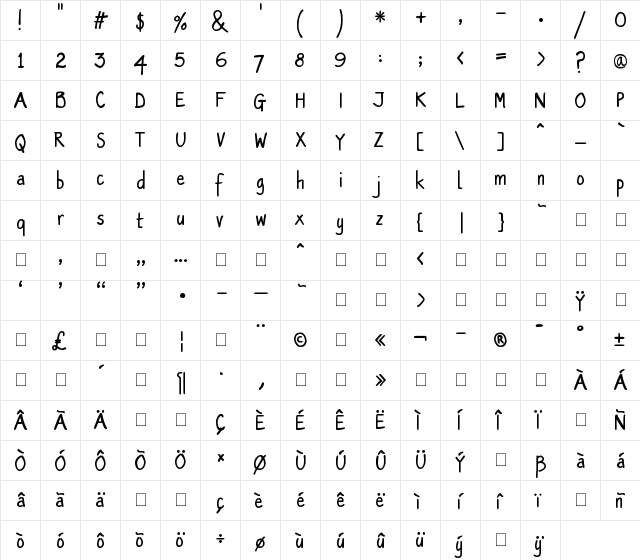
PT Script Eclipse Regular Font Preview
PT Script Eclipse Regular
PT Script Eclipse Regular Font Details
| Designer | Stuff designers of ParaType |
Design Context for PT Script Eclipse Typeface
PT Script Eclipse flows with the natural rhythm of handwritten lettering, making it ideal for designs that call for warmth and personal expression.